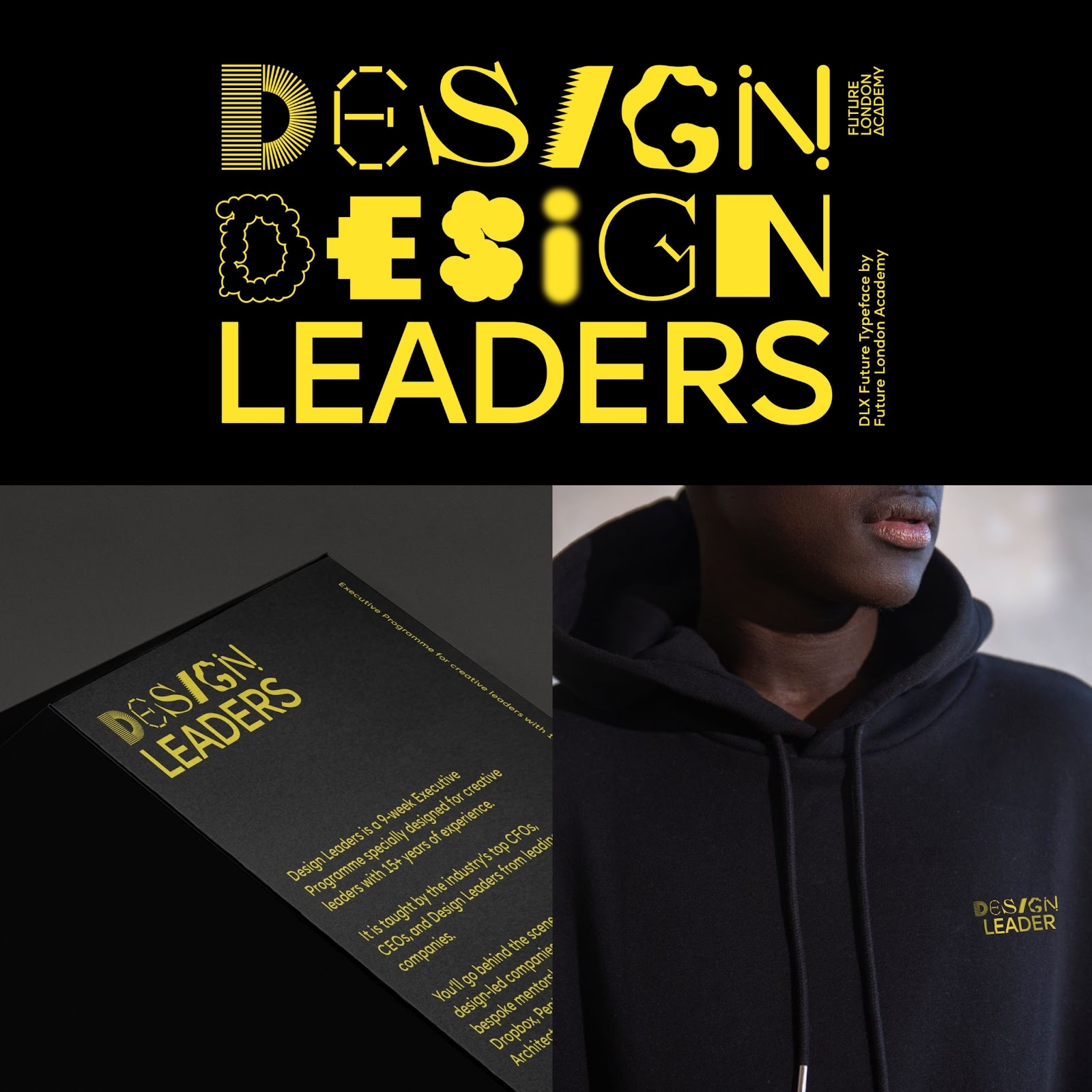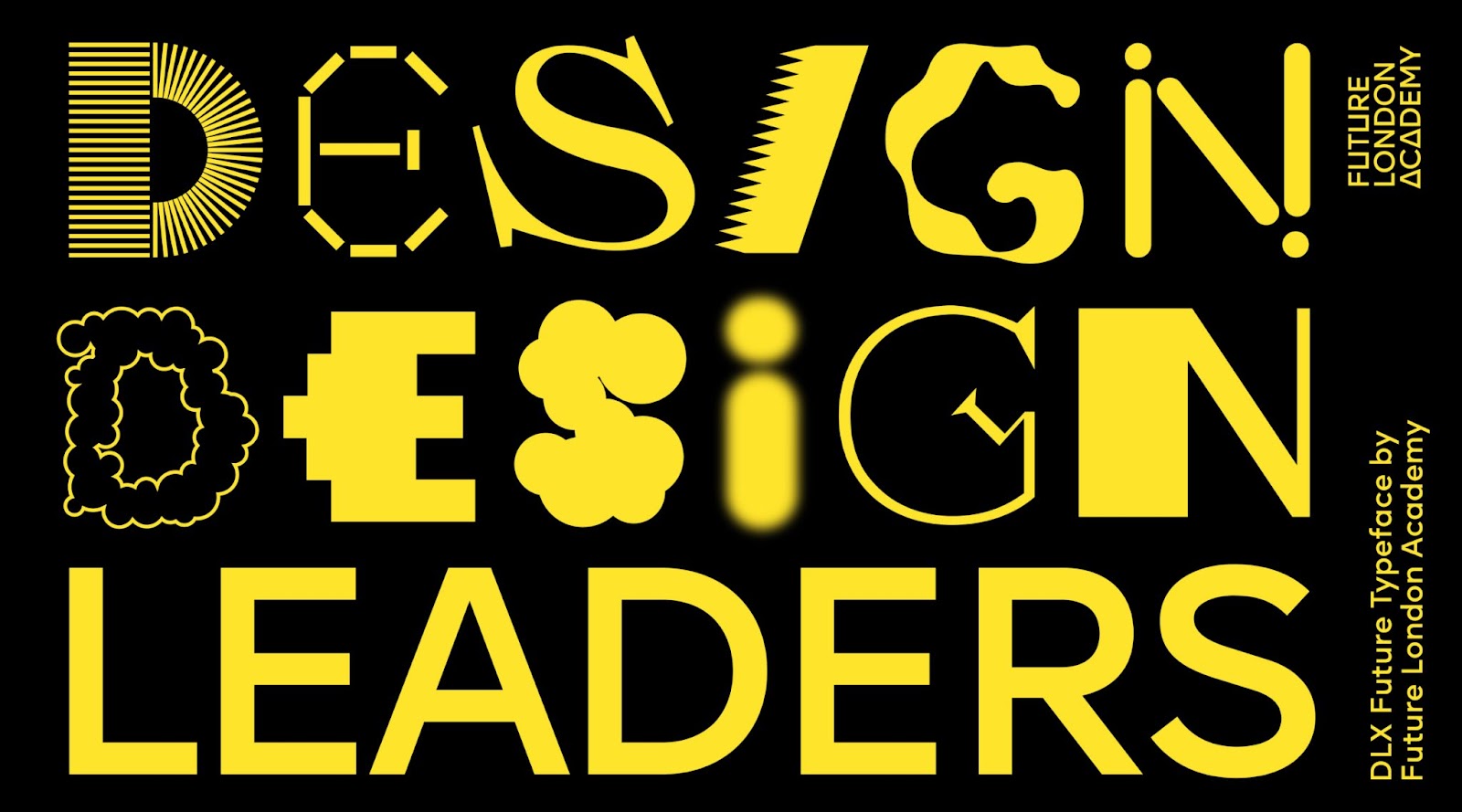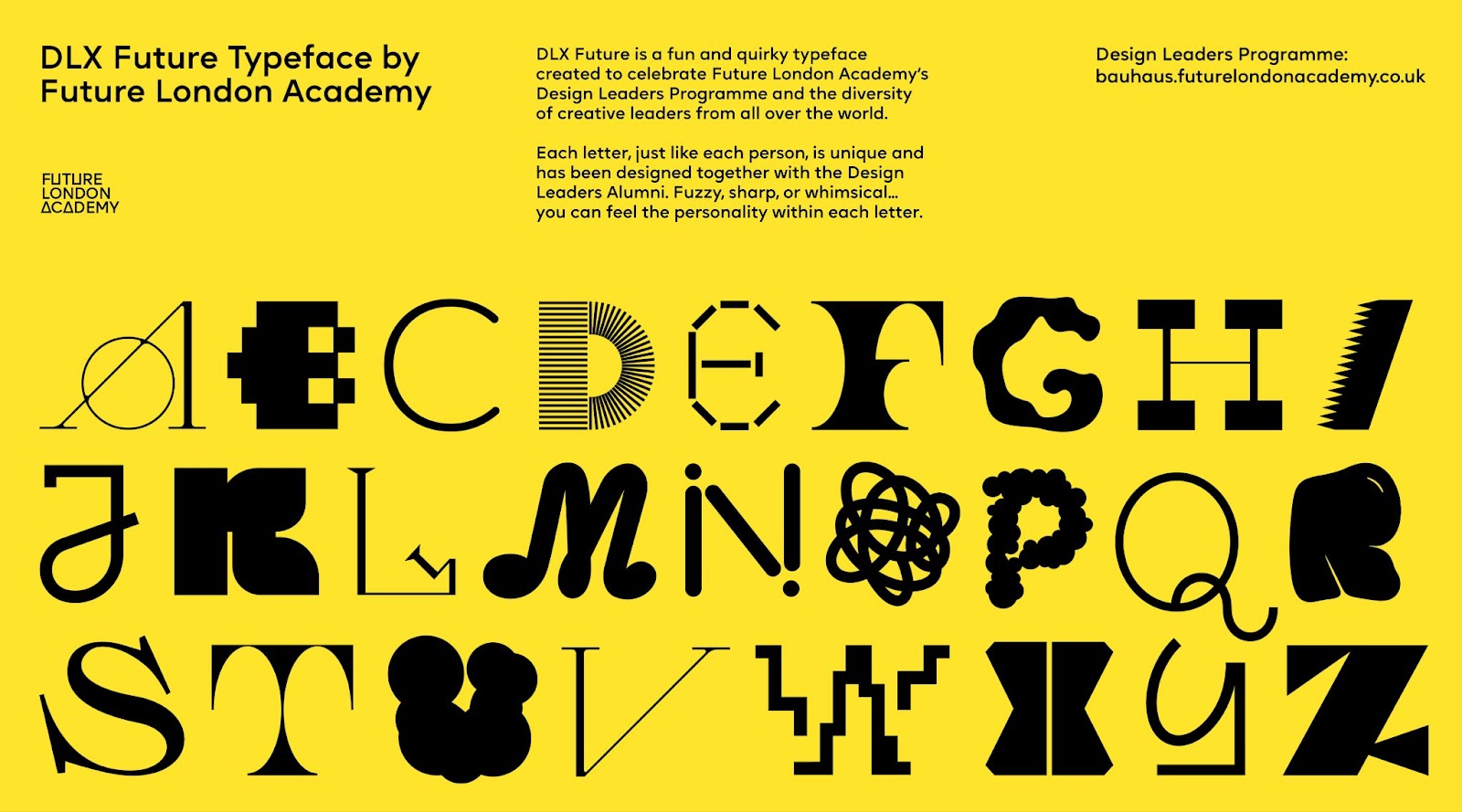
DLX Future Typeface: Celebrating Typography and Font Design
Explore DLX Future, a unique typeface blending typography and font design with the spirit of creative leadership, crafted by Future London Academy.
In the vibrant world of design, typography holds a special place, bridging the gap between visual art and verbal communication. The DLX Future typeface, born out of a collaboration between Future London Academy and its Design Leaders Programme alumni, stands as a testament to the power of typography to encapsulate diversity and creativity. Each letter in the DLX Future font tells a story, a nod to the individuality of creative leaders worldwide.
Crafted with care and creativity, DLX Future is built on the foundational shapes of the circle, triangle, rectangle, square, and a whimsical wriggle wire. These elements, inspired by the Bauhaus pillars, mirror the layered approach of the Design Leaders Programme—aiming to cultivate better humans, products, teams, companies, and contributions to a better world.
Designer Polina Kirei, in collaboration with Future London Academy, has infused the DLX Future font with a blend of textures and forms. From fuzzy edges to sharp angles and whimsical loops, each character within the typeface is imbued with a unique personality. This approach not only showcases the varied backgrounds and perspectives of the programme's alumni but also reflects the dynamic nature of leadership in the creative industry.
The DLX Future typeface evolves annually, with each new generation of DLX alumni contributing their own glyphs post-graduation. This iterative process ensures that the font remains a living, breathing representation of the academy's ongoing mission to foster innovation and leadership in design.
For enthusiasts and professionals in typography and font design, DLX Future serves as a source of inspiration and a reminder of the impact that thoughtful design can have on communication. This project exemplifies how design can be a collaborative, evolutionary process, echoing the continuous growth and learning that defines the journey of a creative leader.
By focusing on the design aspects and the unique collaborative approach behind DLX Future, this article highlights the intersection of typography, creativity, and leadership. The DLX Future font not only celebrates the diversity of creative minds but also paves the way for future explorations in the field of typography and design.
- Designer: Polina Kirei, Future London Academy
- Typefaces: OnyFuture